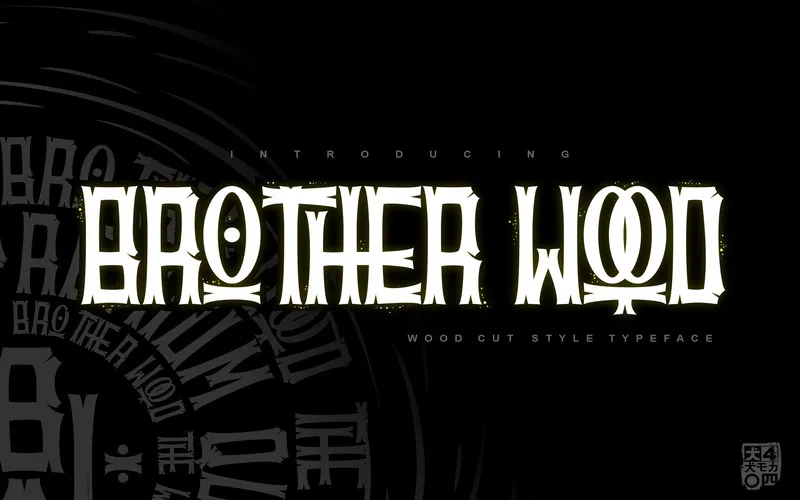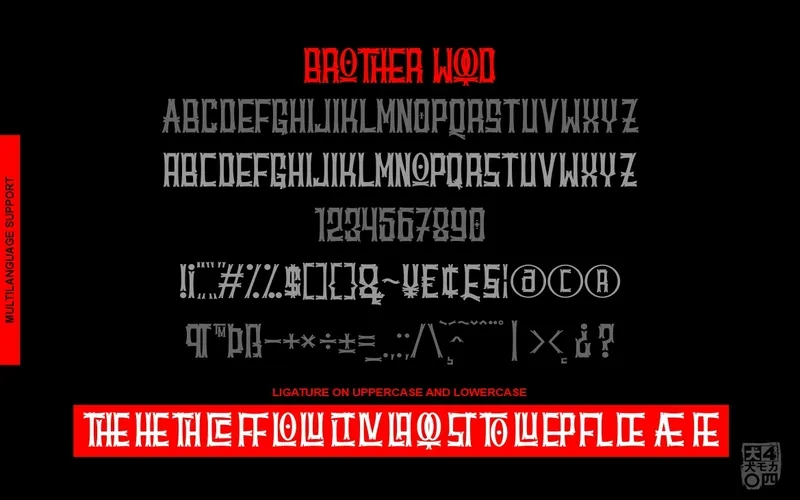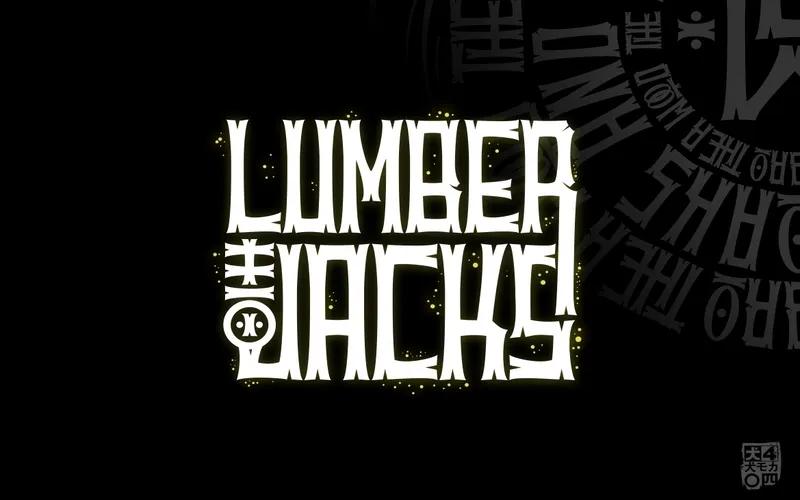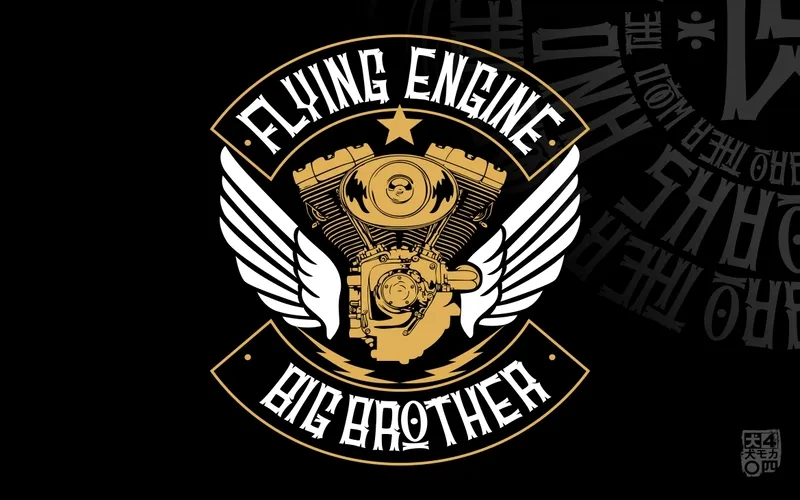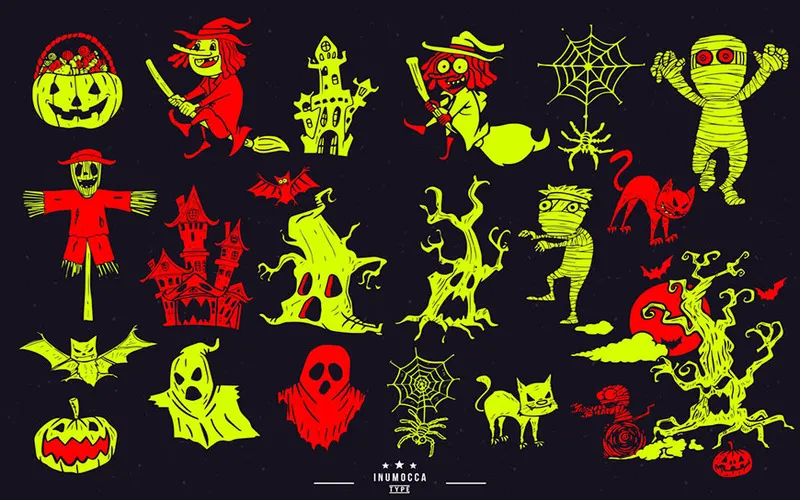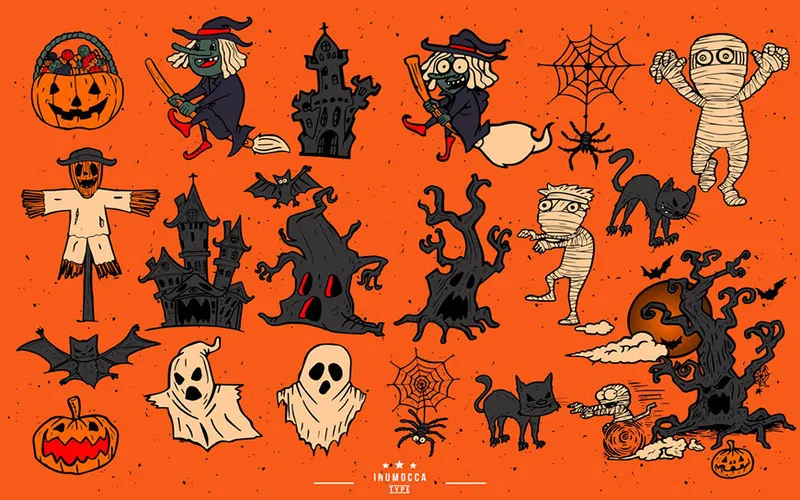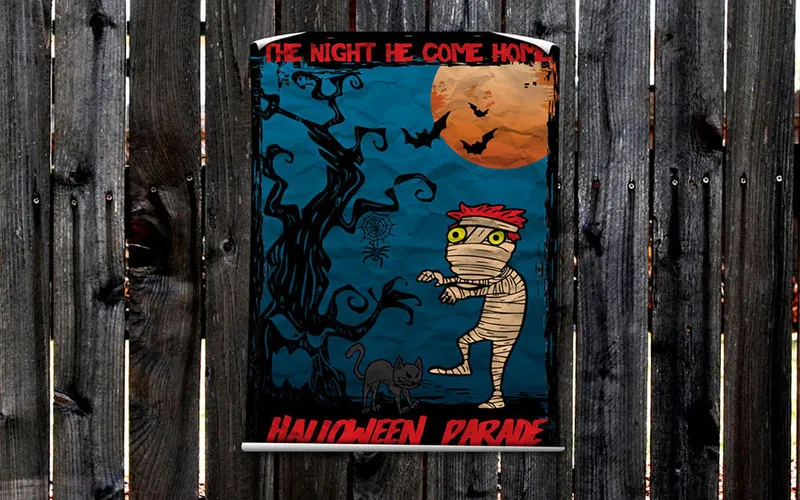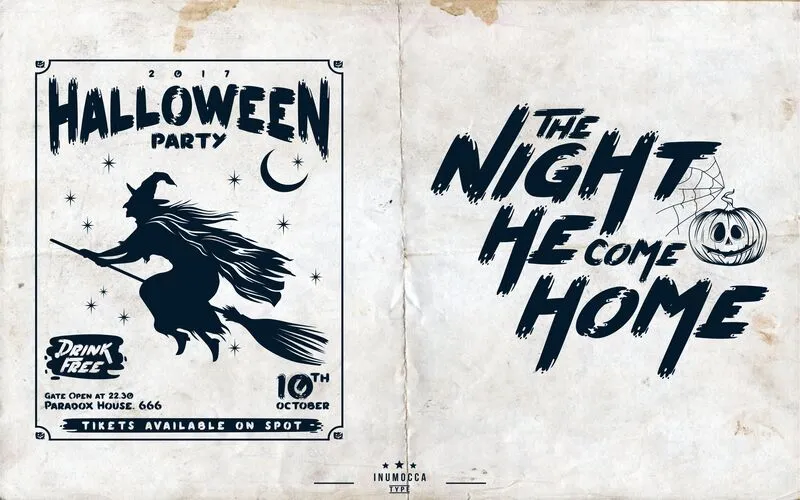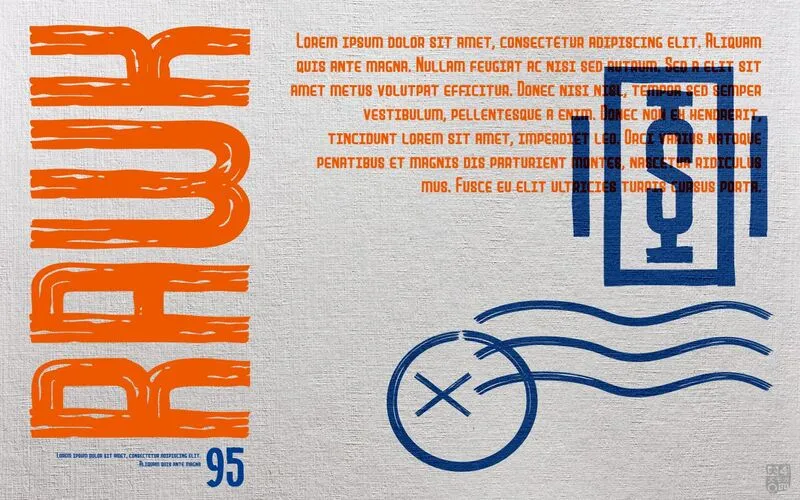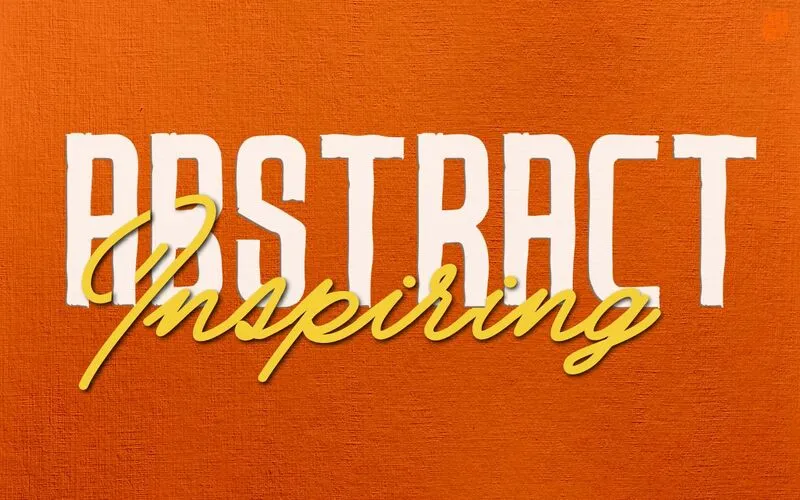
From haunted parties to creepy campaigns, nothing sets the mood like terrifying fonts and spooky designs. That’s why DealFuel brings you the –
Creepy Halloween Fonts & Poster Templates Bundle
This Halloween bundle includes 5 haunting font families and 10 professional poster and badge templates.
Each of these fonts has been crafted with intricate details, brushstrokes, and Gothic styles.
They can instantly bring that much-needed spooky vibe to your designs.
Whether you’re a graphic designer, marketer, or DIY crafter, these fonts and templates will elevate your creativity to the next level.
This Creepy Halloween Fonts & Poster Templates Bundle Includes:
• BrotherWood Font Family
• House Of Glory Font Family
• Industrial Sans Font Family
• Pumpkin’s Brush Font Family
• Stronghold Brush Font Family
A Preview Of The Creepy Halloween Fonts & Poster Templates:
BrotherWood Font Family
House Of Glory Font Familiy
Industrial Sans Font Family
Pumpkin’s Brush Font Family
Stronghold Brush Font Family
Halloween Badges & Poster Templates